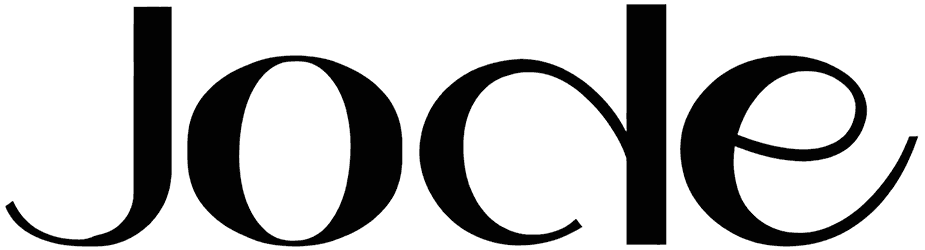
Jode Font
The amount of elegance you get to welcome to your lettering by picking a luxury font like Jode is off the charts. It gets even better when you find out about its other font families available altogether.
No matter which one of them you pick, this logo font will make it look so easy to come off sophisticated and high-end. That’s the sort of thing that compels you to choose Jode for your yoga websites, fashion business cards, and more.